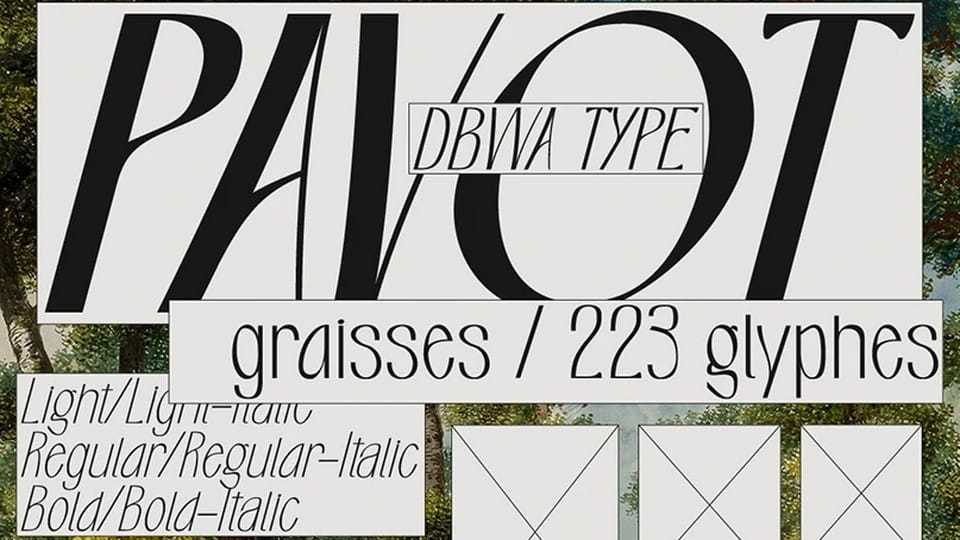
Download Pavot font, a free display typeface that effortlessly blends classical elegance with a modern aesthetic. Designed as a hybrid between a structured sans-serif and the fluidity of traditional calligraphy.
Designer: DBWA